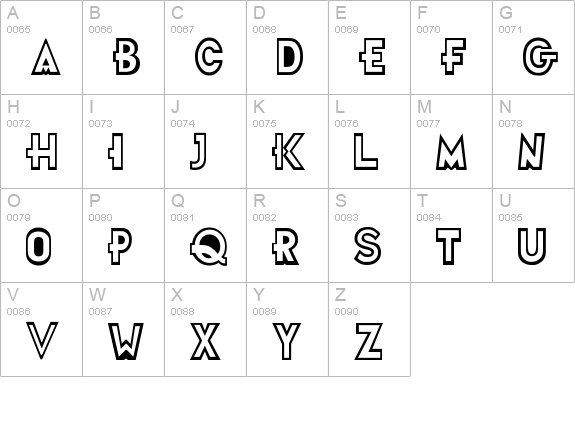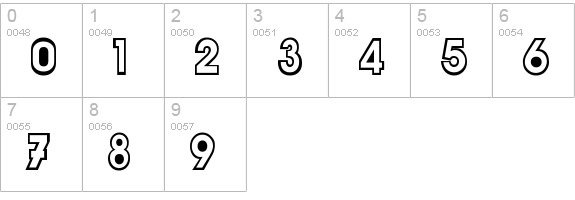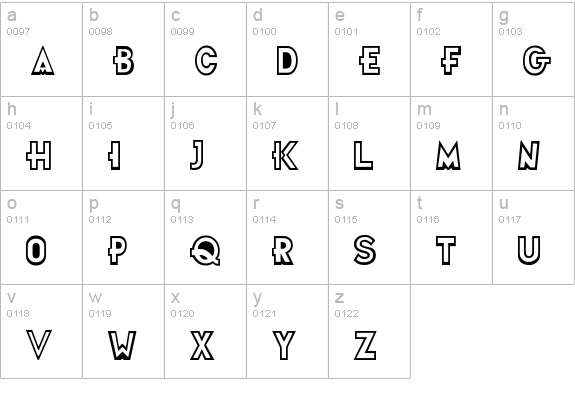
Futurama Title Font Font Details
Introducing the Futurama Title Font, a modern and sleek typeface that brings a touch of futuristic flair to your design projects. This font is perfect for creating eye-catching titles, logos, and headlines that will captivate your audience. With its bold and futuristic style, the Futurama Title Font is sure to make a statement in any design. Best of all, this font is available for free download at FontsMarket.com. Simply visit the website and add this unique typeface to your font collection today. Don't miss out on the opportunity to enhance your designs with the Futurama Title Font - download it now and let your creativity soar!